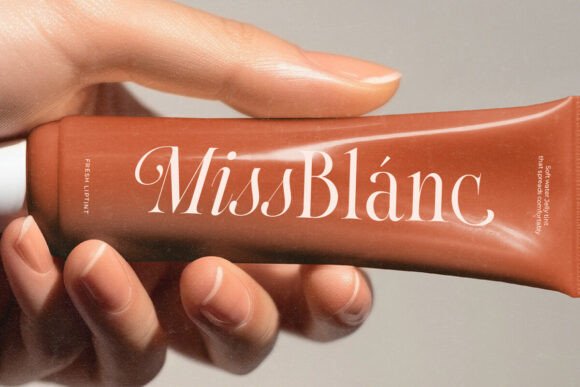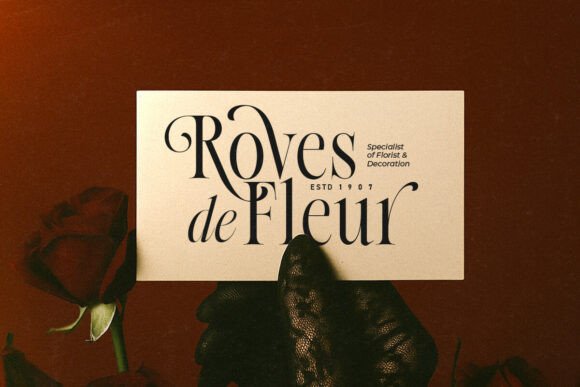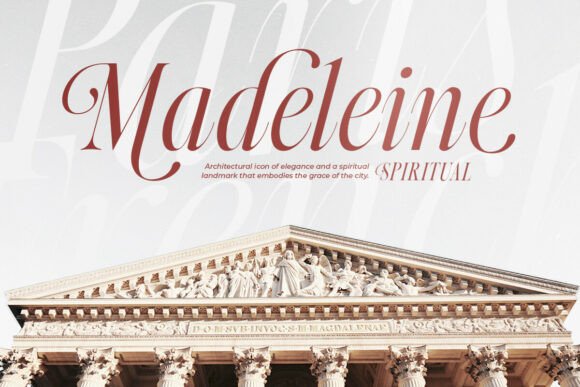
Introduction to Native Designer Font Font
Fonts play a crucial role in design, and the Native Designer Font font is a typeface that brings both character and versatility to any project. Whether you’re working on a branding project, a website, or a print design, the Native Designer Font font offers a unique style that can elevate your work.
Native Designer is a classic yet modern serif family that have luxurious, and glamour looks.
With true italic version, you can use this font family for any purposes such as wedding invitations, logo, and branding With stylish alternates in both style, this font will make your design looks stunning and beautiful.
Key Features of Native Designer Font Font
Why Choose Native Designer Font Font?
The Native Designer Font font is more than just a typeface – it’s a design tool that helps you communicate your message with style and clarity. Its unique character set and versatile design make it suitable for a wide range of applications, from elegant invitations to bold headlines.
With its carefully crafted letterforms and balanced proportions, the Native Designer Font font ensures readability and visual appeal across all mediums.
What makes Native Designer Font font special?
The Native Designer Font font stands out with its unique design, exceptional readability, and versatility across various design applications.